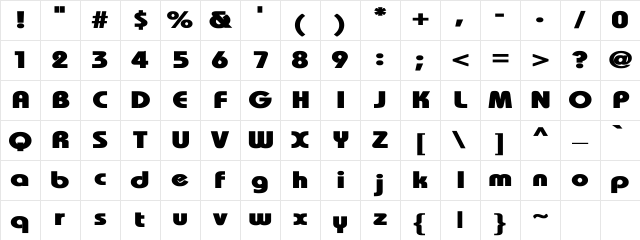
Bauhaus Wd Bold Bold
Design Context for Bauhaus Wd
Bauhaus Wd is a composed and adaptable typeface that performs quietly and consistently across a wide range of design contexts. Its bold stroke weight gives it real presence on the page.